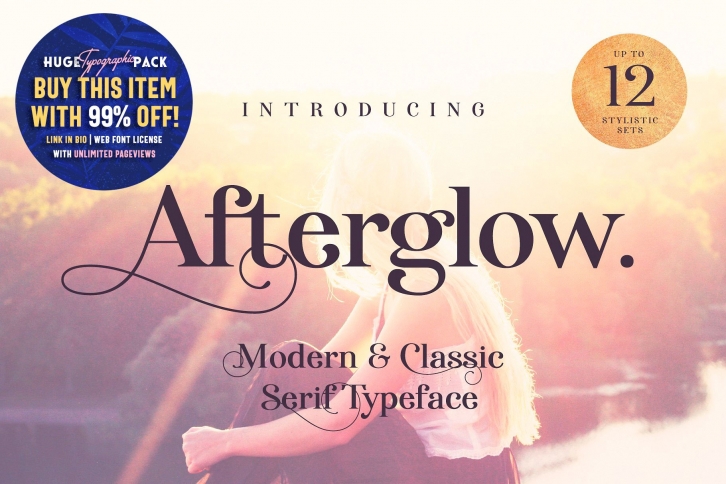
Elegant and so stylish serif typeface full of contrast lines, a lot of Stylistic Alternates with thin swashes. Some letters has up to 12 of them. Use only capitals for headers or quotes, it looks strong and refined, or use Caps with lowercase for block texts, or subheaders. Design your art- or beauty blogs, t-shirts or websites, posters, magazines or cards, and logo's of course. You will return to this font again and again.